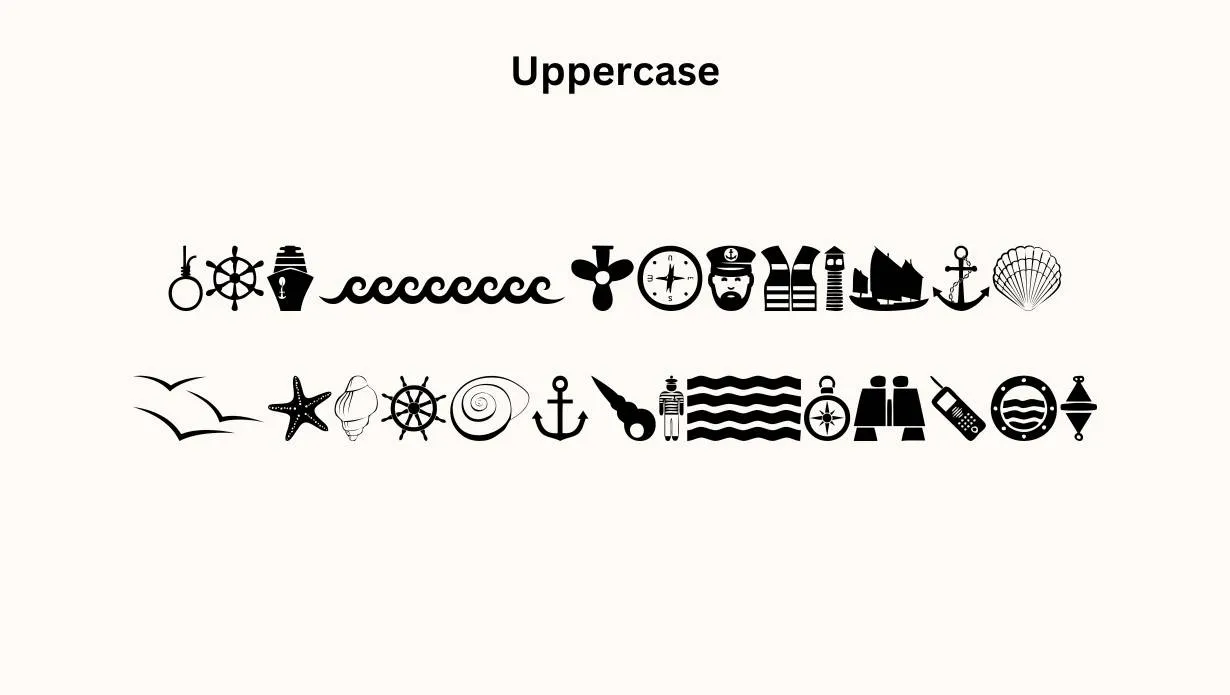
Nautical Font has a maritime-inspired design, perfect for projects related to sailing, beach themes, and coastal areas.
Its decorative elements add a touch of the sea and adventure to your designs, making it a great choice for nautical and coastal-themed projects. It can also be combined with gosha font to improve your designs readability.
| Name | Nautical Font |
| Designer | Woodcutter |
| Style | Dingbats |